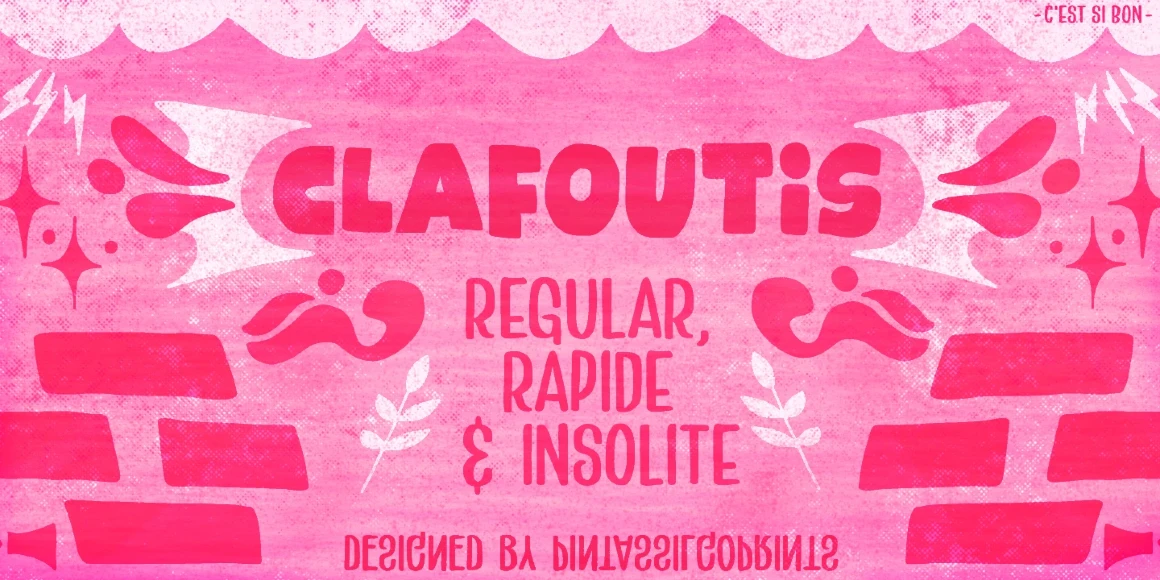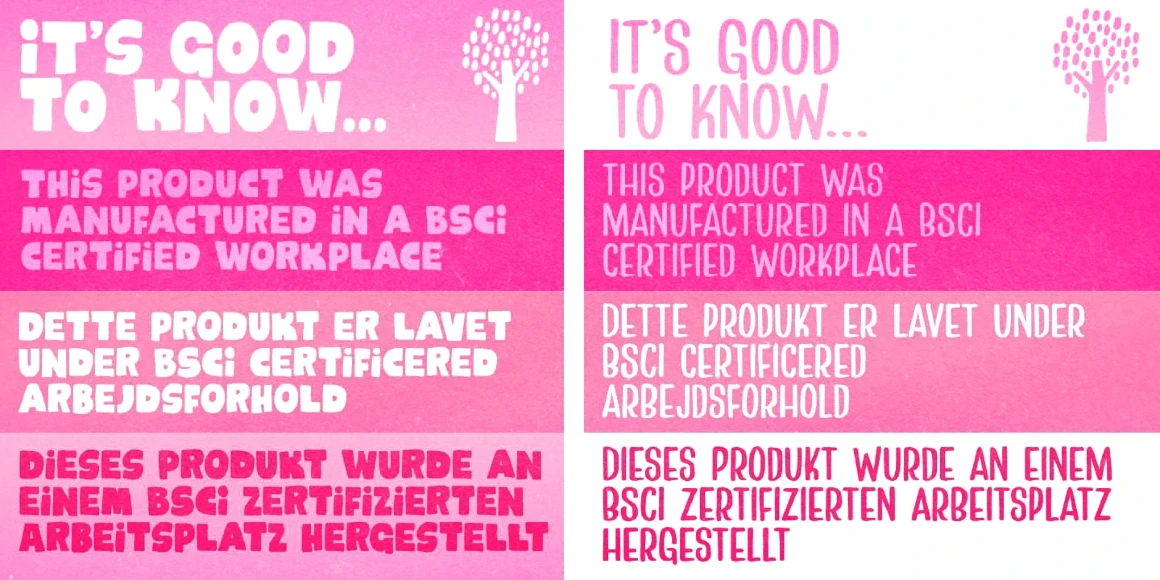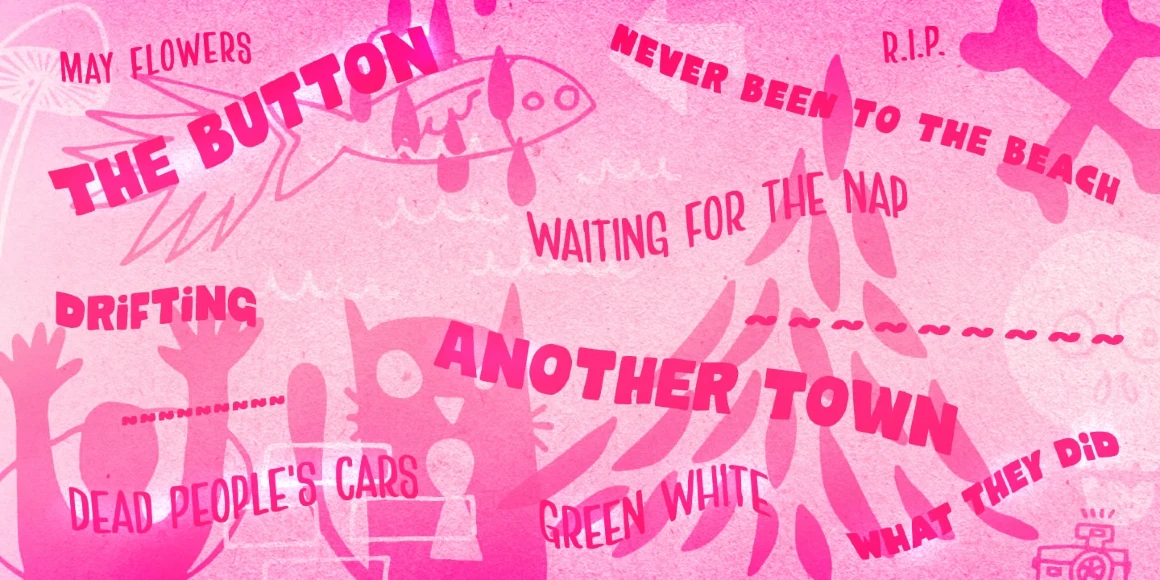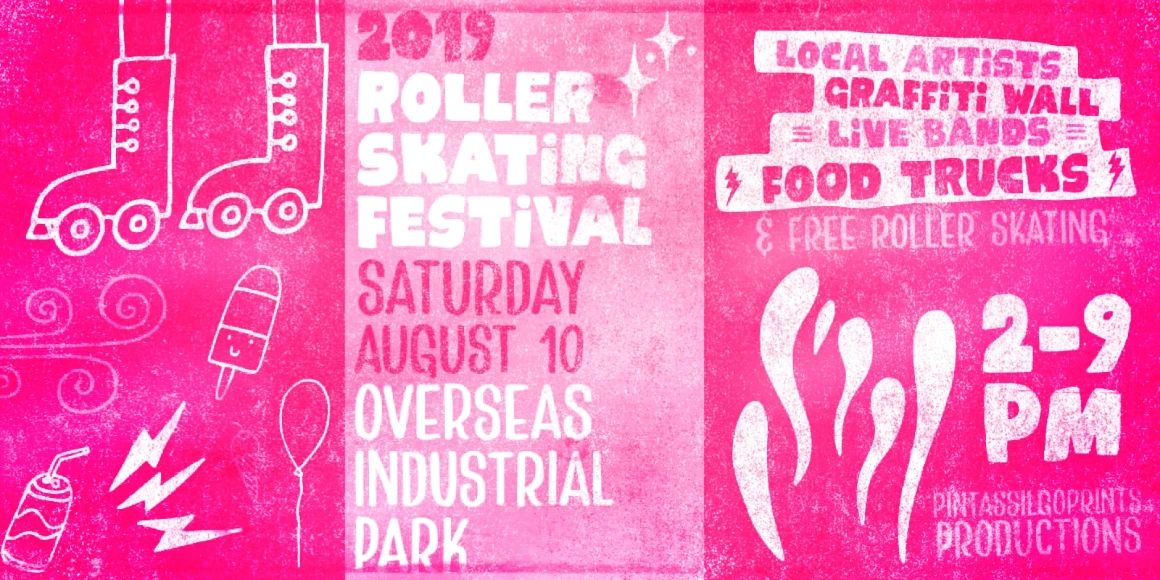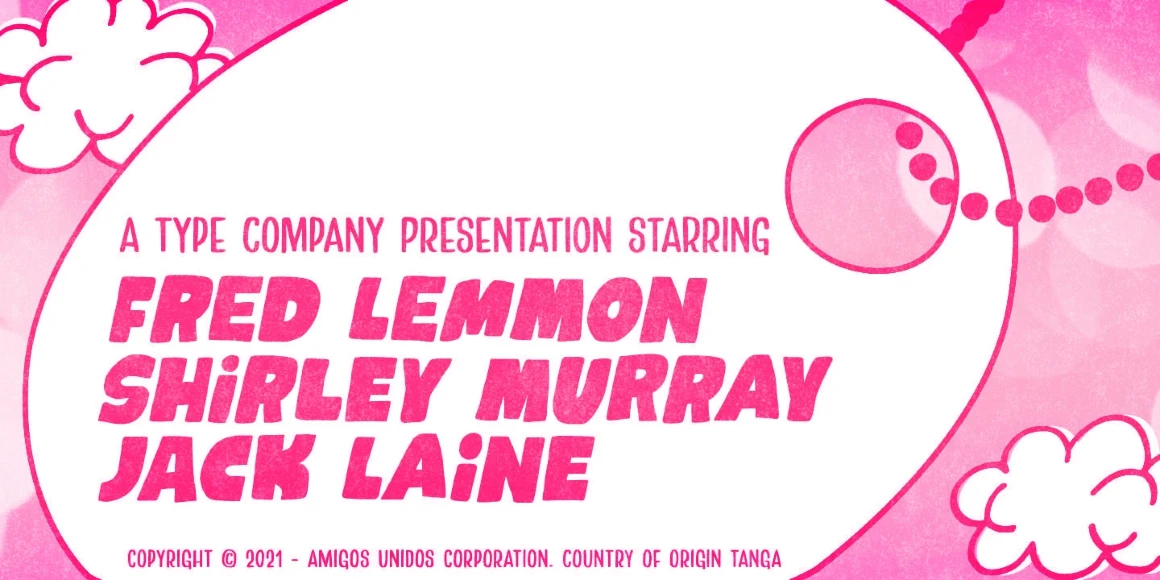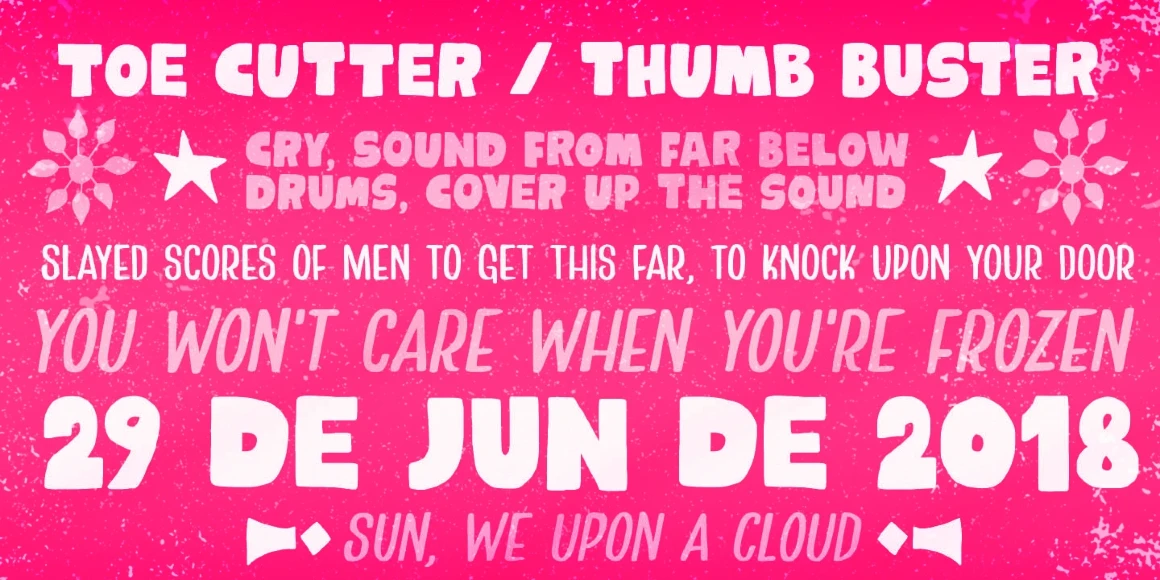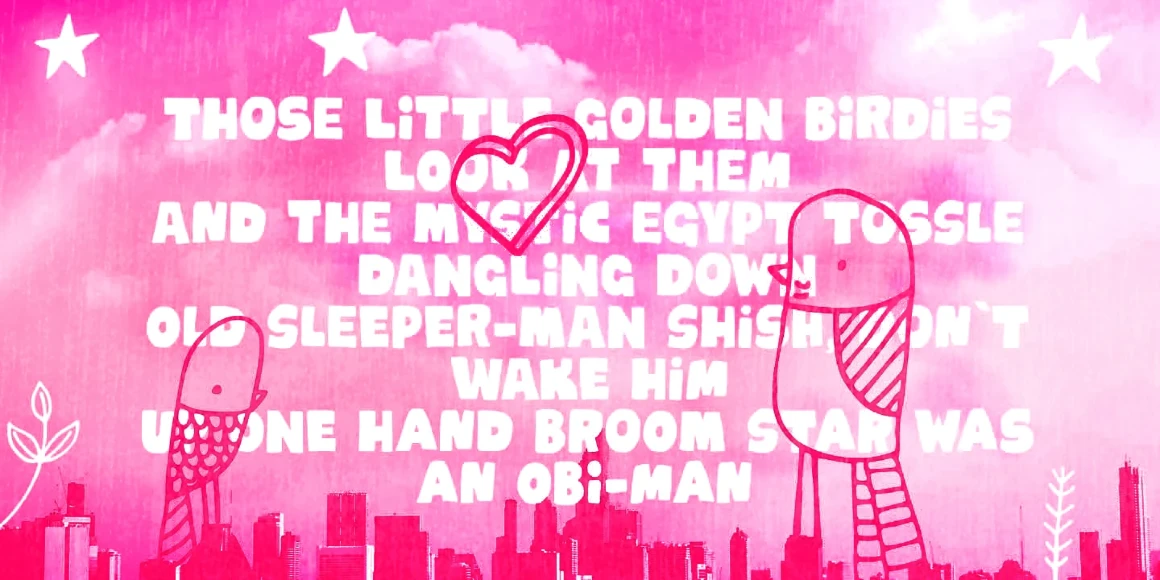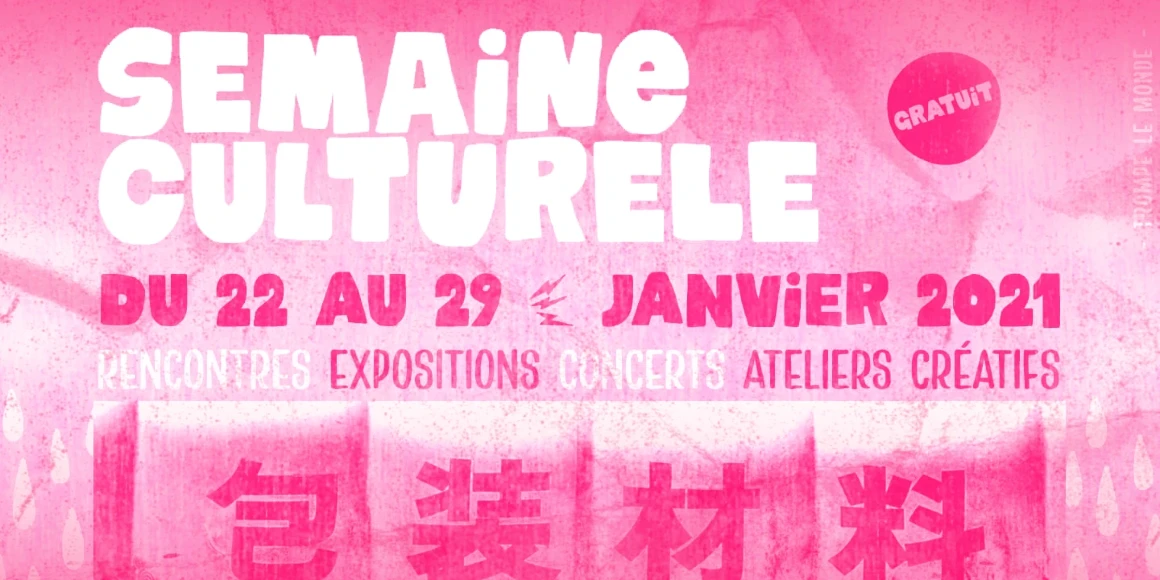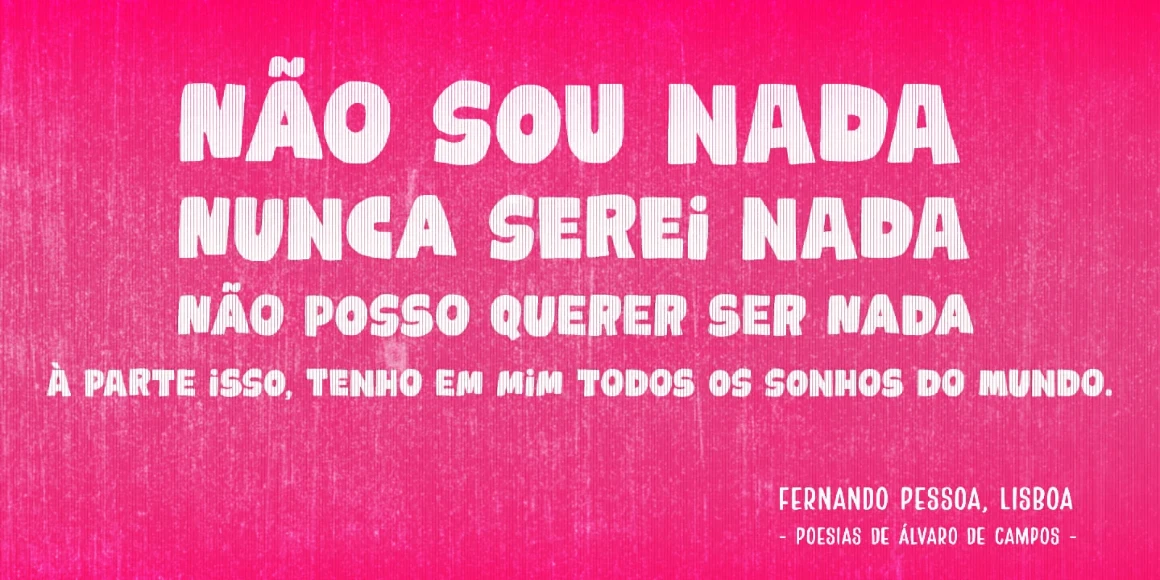
Clafoutis
Clafoutis is all things tasty, sweet, and tangy. It is handmade, an all-original recipe. Clafoutis Regular and Rapide contain two different glyphs for each letter to maintain a hand-lettered authenticity. Choose the Regular for a boldly decadent option, or opt for Rapide if you want a lighter mood. Just don’t forget to sprinkle some Insolite illustrations throughout! Ideal for posters, packaging, book jackets, poster, or anywhere else you want to grab the viewers attention.